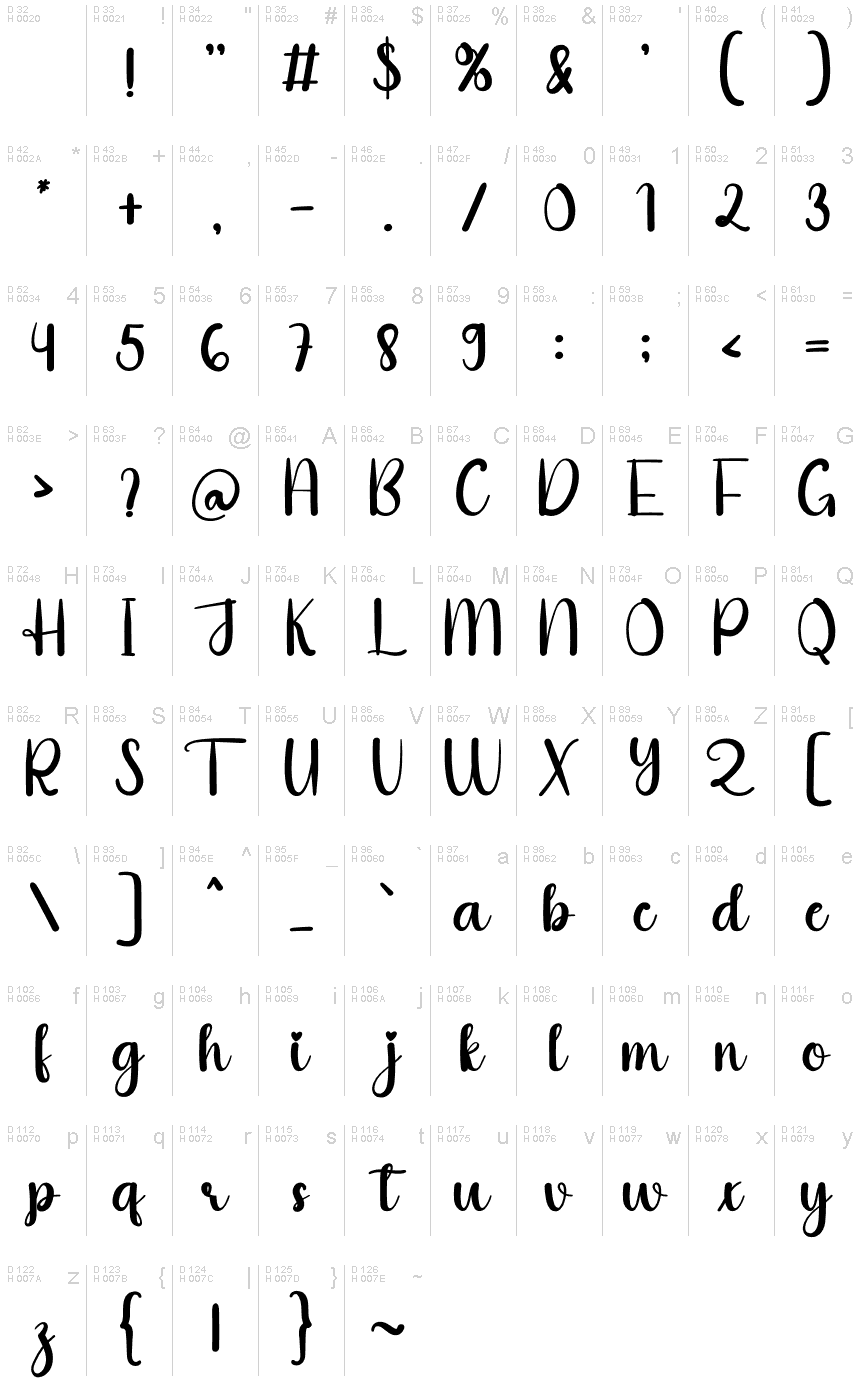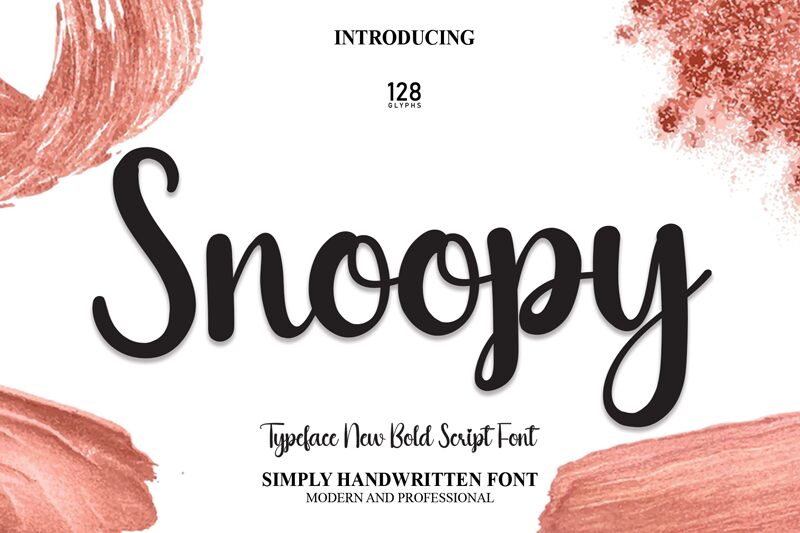
Snoopy
Snoopy, a handwritten font crafted by Scratchones, exudes a personal touch that adds warmth and charm to any creative project. The fluidity of its characters resembles the elegance of calligraphy, while still maintaining an accessible and informal air that invites readers into a space of comfort and familiarity. Each letterform in Snoopy is designed to mimic the nuances of human handwriting, creating an inviting aesthetic that's both stylish and approachable.
The distinct swoops and gentle curves present in this typeface lend it a playful yet sophisticated vibe, making it incredibly versatile for various design undertakings. From heartfelt invitations to branding materials that aim to convey intimacy and authenticity, Snoopy stands out as an excellent choice for designers seeking to infuse their work with personality. Its appearance resonates particularly well with projects that require a handcrafted feel or those aiming to establish an immediate connection with the audience through visual storytelling.
In essence, Snoopy strikes a balance between artistic flair and casual ease, ensuring its suitability across an array of mediums – be it digital content or printed paraphernalia. Embrace the unique character of Snoopy for your next project where style meets sincerity effortlessly.